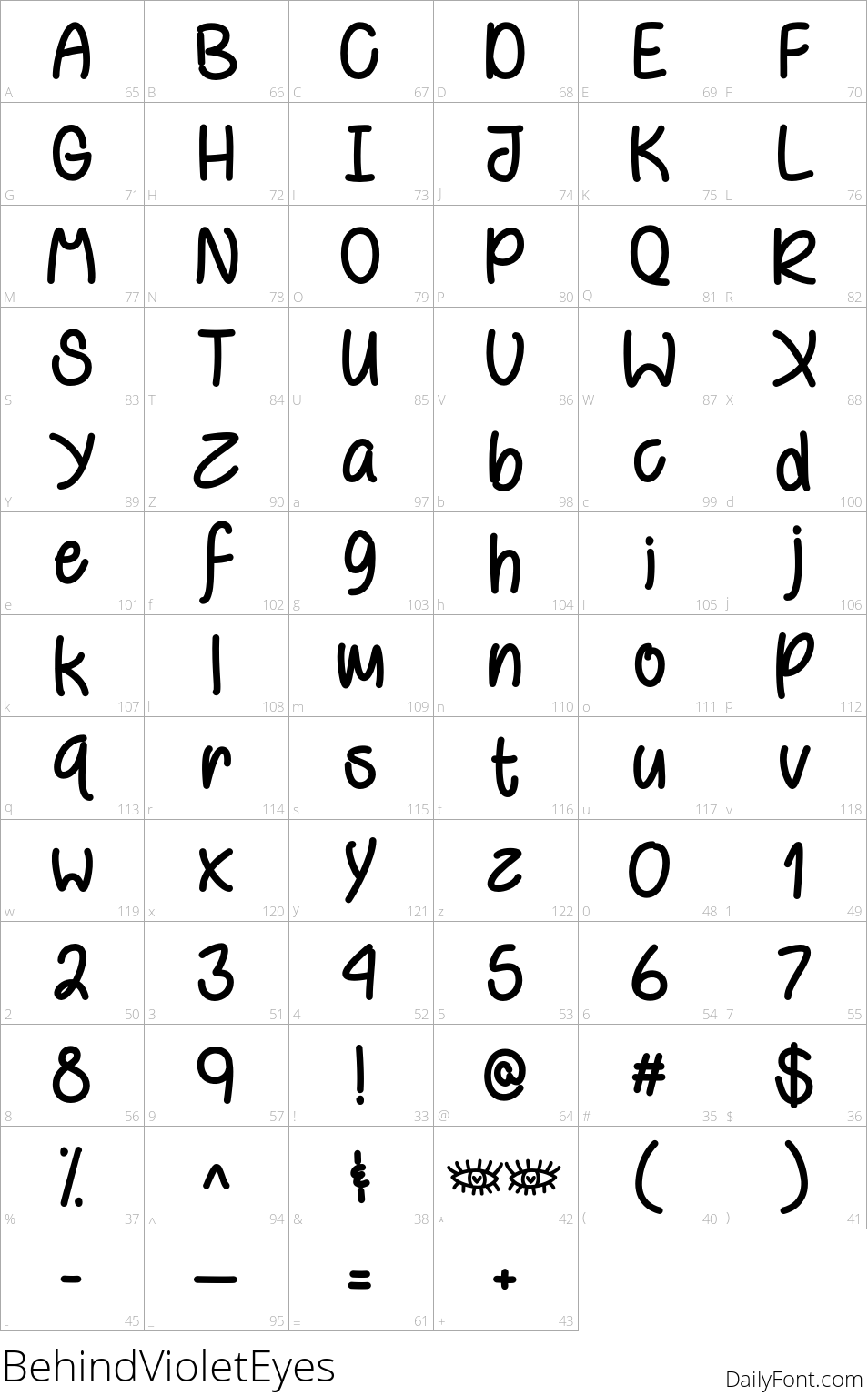
Behind Violet Eyes by Misti's Fonts
Whimsical, handwritten font with stylized eyes and ornate details, ideal for creative projects requiring playful flair.
Misti Hammers is a font designer in Germany who focuses on script, handwritten fonts.